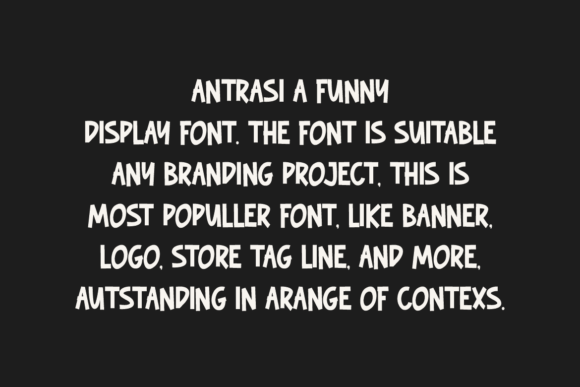
Antrasi Font: Adding a Touch of Playful Energy to Your Designs
In the world of typography, fonts play a crucial role in conveying the tone and personality of a brand. With the numerous font options available, it can be challenging to find the perfect one that captures the essence of your design. However, if you’re looking for a font that exudes playful energy, joy, and a touch of retro charm, look no further than Antrasi Font.
What is Antrasi Font?
Antrasi Font is a fun and quirky display font designed to add a dash of excitement to your designs. Its irregular letter shapes and dynamic tilt give it a unique and eye-catching appearance that’s sure to make your headlines pop and your branding projects memorable.
Key Features of Antrasi Font
- Irregular Letter Shapes: Antrasi Font boasts irregular letter shapes that give it a playful and whimsical feel.
- Dynamic Tilt: The font’s dynamic tilt adds a sense of movement and energy to your designs.
- Retro Charm: Antrasi Font’s retro charm makes it perfect for designs that require a touch of nostalgia.
- Bold Style: The font’s bold style ensures that your headlines and branding projects stand out.
Perfect for Various Design Projects
Antrasi Font is versatile and can be used for a wide range of design projects, including:
- Posters: Add a touch of playfulness to your posters with Antrasi Font.
- Children’s Books: The font’s fun and quirky nature makes it perfect for children’s books.
- Product Packaging: Antrasi Font can add a dash of personality to your product packaging.
- Social Media Graphics: Use the font to create eye-catching social media graphics that grab attention.
Why Choose Antrasi Font?
Antrasi Font is an excellent choice for creatives looking to stand out from the crowd. Its bold style, playful attitude, and retro charm make it a unique and attention-grabbing font.
- Unique and Eye-Catching: Antrasi Font’s irregular letter shapes and dynamic tilt make it a one-of-a-kind font.
- Easy to Read: Despite its playful nature, Antrasi Font is easy to read, making it perfect for headlines and titles.
- Versatile: The font can be used for various design projects, from posters to social media graphics.
Tips for Using Antrasi Font Effectively
To get the most out of Antrasi Font, here are some tips to keep in mind:
- Use it for Headlines: Antrasi Font is perfect for headlines and titles, where its bold style and playful attitude can shine.
- Experiment with Colors: The font looks great in bold and bright colors, so don’t be afraid to experiment.
- Pair it with Other Fonts: Antrasi Font can be paired with other fonts to create a unique and visually appealing design.
In conclusion, Antrasi Font is a fun and quirky display font that’s perfect for adding a touch of playful energy to your designs. Its irregular letter shapes, dynamic tilt, and retro charm make it a unique and attention-grabbing font that’s sure to make your headlines pop and your branding projects memorable.